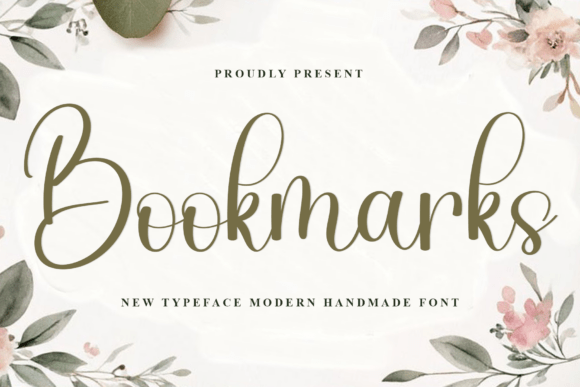
The Elegance of Bookmarks Font: A Designer’s Delight
I’ll never forget the time I was working on a literary-themed branding project, and my client asked me to create a bespoke font that would make their book club’s logo stand out. I spent hours scouring the internet for the perfect font, but nothing seemed quite right. That was until I stumbled upon Bookmarks Font. Its elegant, fluid script and refined aesthetic immediately caught my eye, and I knew I had found the perfect fit. In this article, I’ll share my love for Bookmarks Font, its features, and how to make the most of it in your designs.
- ✨ Elegant and fluid script font with a refined, modern aesthetic
- ✅ Consistent monolinear strokes that flow into graceful, looped ascenders
- ✅ Organic connection between letterforms, giving the text a rhythmic, hand-penned quality
- ✅ Perfect for literary-themed branding, boutique editorial headers, artisanal stationery, and sophisticated lifestyle blog titles
While Bookmarks Font is an excellent choice for many design projects, there are a few things to keep in mind:
- ⚠️ The font’s elegant, cursive nature may not be suitable for very large blocks of text or body copy.
- 🤔 Some users may find the font’s organic connections between letterforms require a bit of adjustment when using it in certain design contexts.
The Story Behind Bookmarks Font
Bookmarks Font was designed with the intention of capturing the essence of a refined, modern, handmade aesthetic. The designer’s inspiration came from traditional calligraphy and lettering techniques, combined with a desire to create a font that felt personal and high-end. The result is a beautiful, elegant script font that’s perfect for a wide range of design projects.
Q: What is Bookmarks Font best suited for?
A: Bookmarks Font is ideal for literary-themed branding, boutique editorial headers, artisanal stationery, and sophisticated lifestyle blog titles.
Q: Is Bookmarks Font available in different weights or styles?
A: Bookmarks Font is available in a single weight, but it features a range of OpenType features, including glyphs and stylistic alternates, to help you customize your text.